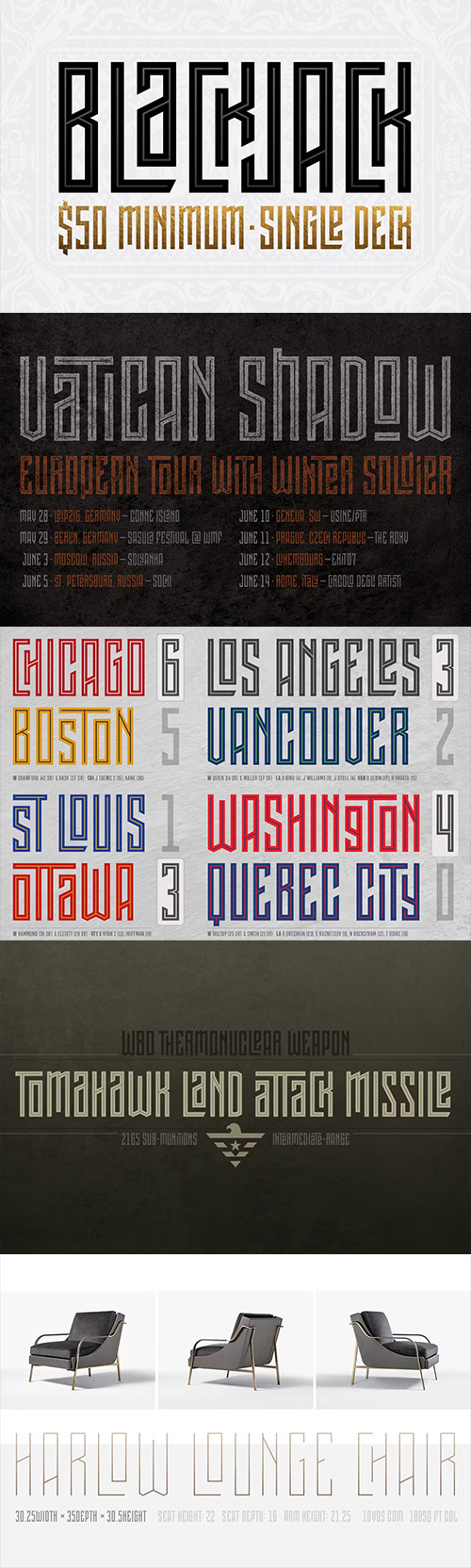
- Pocketknife is a simple grid-based titling font on it’s surface, but it has a surprisingly prolific set of features under the surface. The most notable of these features is an abundant set of ligatures that give Pocketknife it’s unique look. There are very few kerning pairs contained within Pocketwatch, and these ligatures fill in most gaps that could be created by letters with more empty space, such as L and T, and also give a more playful look to an otherwise sharp-edged typeface.
Pocketknife is sharp, but playful. Simple, but sophisticated. Sporty, technical, and aggressive, yet elegant and fun. Pocketknife, while simple at first glance, is a deceivingly versatile typeface.